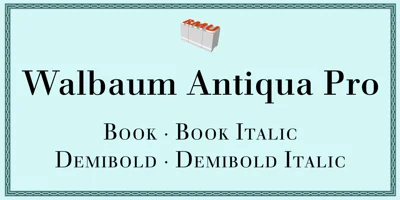
Walbaum Antiqua Pro Font
The Walbaum Antiqua Pro Font is an exquisite and highly refined serif typeface that embodies classical elegance and impeccable legibility. Envision its sophisticated presence gracing the pages of high-end literary publications, adding a touch of timeless class to luxury brand identities, or elevating the aesthetic of art gallery catalogs and museum exhibits. Its sharp serifs, graceful curves, and balanced proportions also make it an ideal choice for editorial design, elegant website typography, prestigious invitations, and comprehensive annual reports. Whether your goal is to convey authority, tradition, or a delicate sense of artistry, Walbaum Antiqua Pro Font delivers with its unparalleled clarity and distinguished beauty, ensuring your message is communicated with supreme grace.
What makes Walbaum Antiqua Pro Font so exciting is its masterful blend of historical heritage and contemporary versatility. It draws inspiration from the transitional and modern typefaces of the 18th and 19th centuries, yet it's been meticulously crafted for today's diverse digital and print environments. This font offers designers the ability to infuse their projects with a deep sense of heritage and sophistication, while maintaining exceptional readability across all mediums. It’s more than just a typeface; it’s a design staple that provides a foundation of understated luxury and intellectual depth, making it a favorite among typographers and graphic designers who value precision and classic beauty.
The Walbaum Antiqua Pro Font family is renowned for its comprehensive and meticulously crafted range of weights and styles, offering unparalleled typographic control. Beyond the foundational Walbaum Antiqua Pro Regular, the family typically includes a rich array of options such as Walbaum Antiqua Pro Light, Walbaum Antiqua Pro Medium, Walbaum Antiqua Pro Bold, and various Walbaum Antiqua Pro Italic styles. Furthermore, professional versions often come with an extensive character set, ligatures, small caps, and a variety of numeral styles (e.g., old-style figures, lining figures), providing immense flexibility for sophisticated typesetting. These diverse family members ensure that designers can create complex and harmonious typographic systems, maintaining a consistent and elegant aesthetic from body text to display headlines.